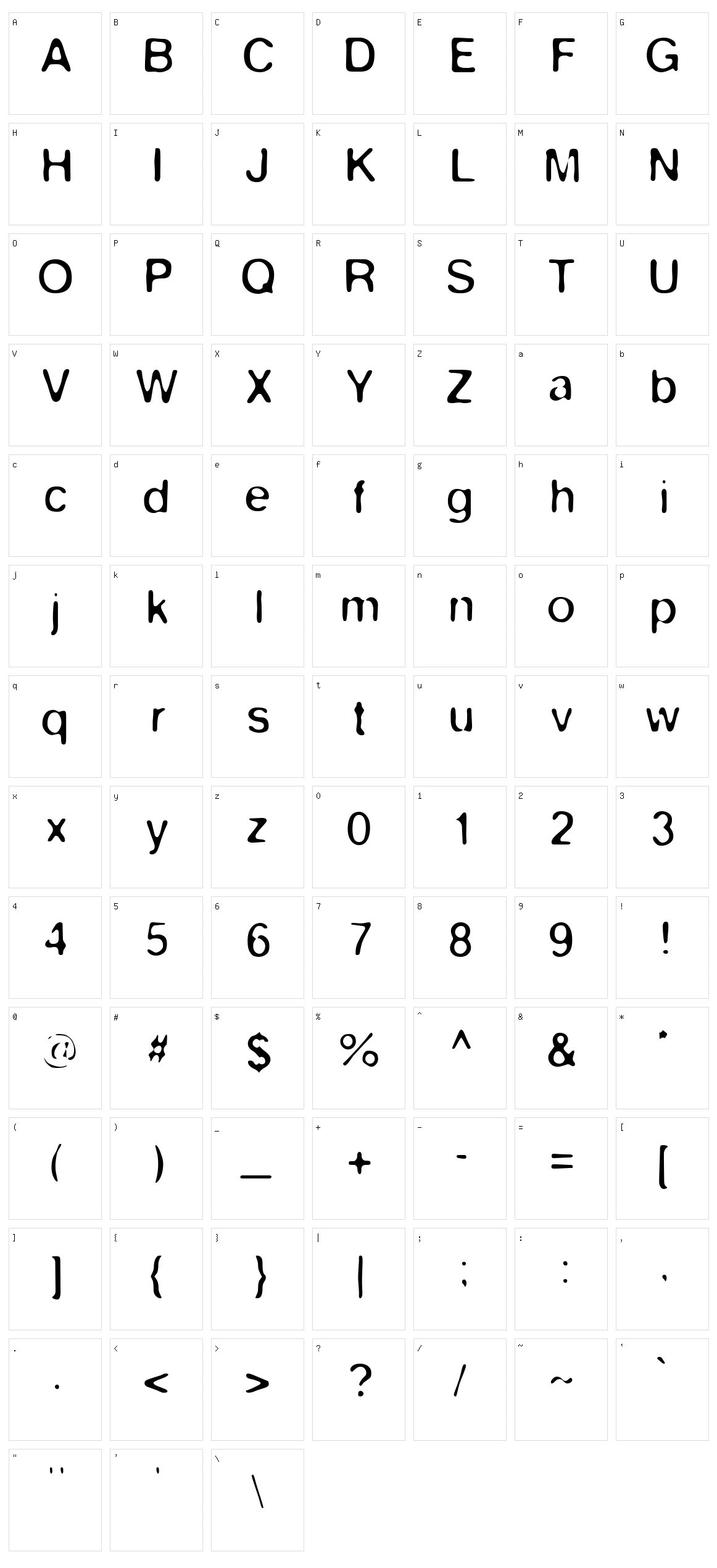
The free font Keyes is carefully designed by Rachel Tiffany, showcasing a thoughtful balance of creativity and usability and falls under the Eroded font style. When you download the ZIP file, it contains only 21.96 KB of font files, making it lightweight and quick to download. Please review the license details below to understand permitted usage and distribution rights. If license information is not available, we recommend using this font for personal projects only or contacting the author directly for commercial usage permissions.